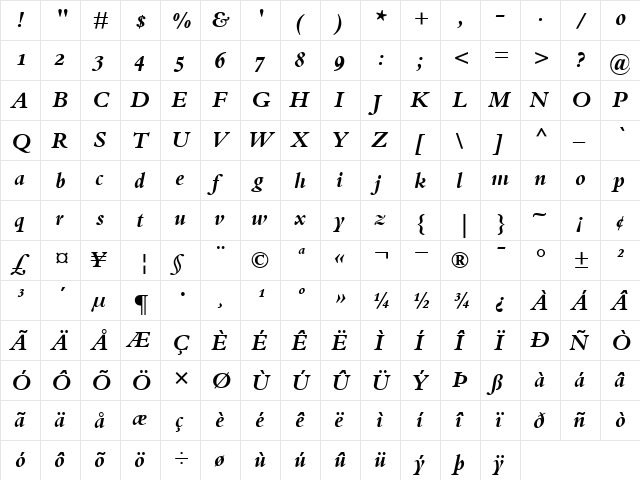
BemboOldstyleFigures BoldItalic Font Preview
Design Context for BemboOldstyleFigures Typeface
BemboOldstyleFigures carries the refined structure of traditional serif typography, with bracketed terminals and considered proportions that communicate credibility and craft. The slanted form adds forward momentum and visual energy. The heavy weight commands attention and anchors typographic hierarchies.